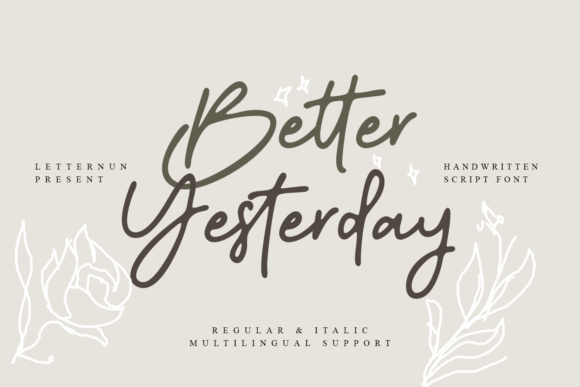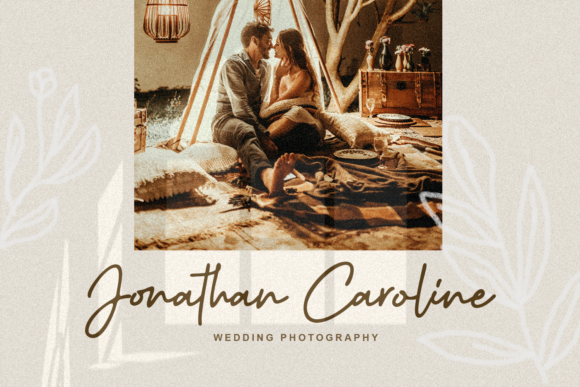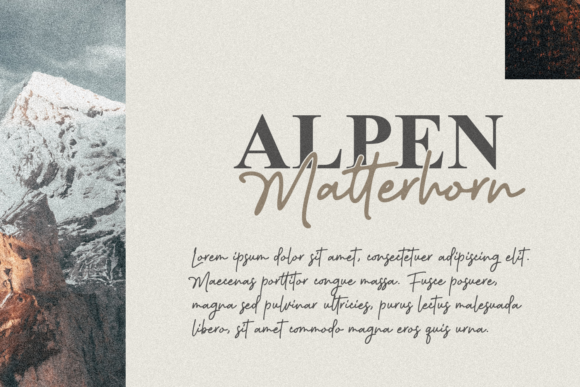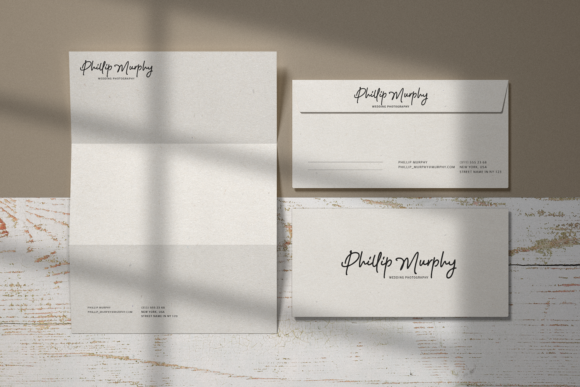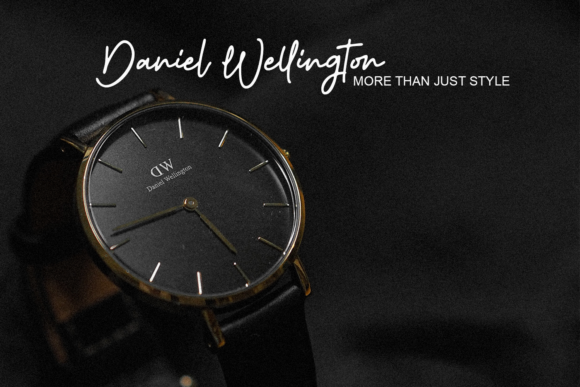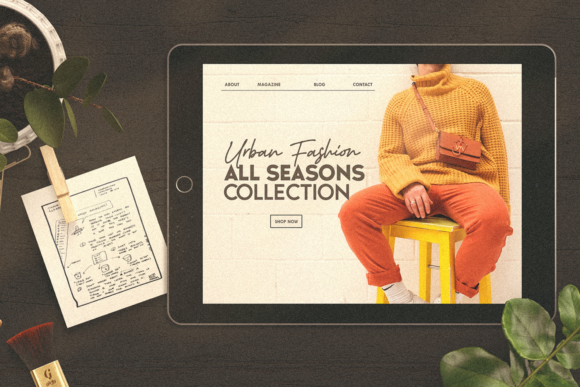
Better Yesterday Font: The Perfect Addition to Your Romantic Designs
Are you looking for a font that exudes romance and elegance? Look no further than the Better Yesterday Font. This dainty and unique script font is perfect for adding a touch of whimsy and sophistication to your designs. In this article, we’ll explore the features and benefits of the Better Yesterday Font, and how you can use it to elevate your love letters, wedding invitations, and design projects.
What is Better Yesterday Font?
Better Yesterday Font is a beautiful script font that is designed to evoke a sense of romance and nostalgia. Its delicate and intricate strokes make it perfect for creating eye-catching and memorable designs. Whether you’re a designer, crafter, or simply someone who loves to write love letters, this font is sure to impress.
Key Features of Better Yesterday Font
- Unique and Dainty Design: The Better Yesterday Font features a one-of-a-kind design that is both dainty and elegant. Its unique strokes and flourishes make it stand out from other script fonts.
- Romantic and Lovely: This font is perfect for creating romantic and lovely designs. Its whimsical and sophisticated feel makes it ideal for love letters, wedding invitations, and other special occasions.
- High-Quality Design: The Better Yesterday Font is designed with high-quality and precision, ensuring that it looks great in any design or project.
- Easily Readable: Despite its intricate design, the Better Yesterday Font is easily readable, making it perfect for body text and other written content.
How to Use Better Yesterday Font
The Better Yesterday Font is versatile and can be used in a variety of design projects. Here are some ideas to get you started:
- Love Letters: Add a touch of romance to your love letters with the Better Yesterday Font. Its whimsical design is sure to make your letters stand out.
- Wedding Invitations: Make your wedding invitations extra special with the Better Yesterday Font. Its elegant design is perfect for formal and informal wedding invitations.
- Design Projects: Use the Better Yesterday Font to add a touch of elegance and sophistication to your design projects. Its unique design makes it perfect for branding, packaging, and more.
- DIY Crafts: Add a personal touch to your DIY crafts with the Better Yesterday Font. Its whimsical design is perfect for creating handmade cards, gift tags, and other crafts.
Tips for Using Better Yesterday Font
Here are some tips for using the Better Yesterday Font:
- Use it Sparingly: While the Better Yesterday Font is beautiful, it’s best to use it sparingly. Use it for headings, titles, or special text to add emphasis and create visual interest.
- Pair it with Other Fonts: The Better Yesterday Font pairs well with other fonts, especially sans-serif fonts. Experiment with different font combinations to create a unique look.
- Adjust the Size and Color: Experiment with different sizes and colors to find the perfect combination for your design.